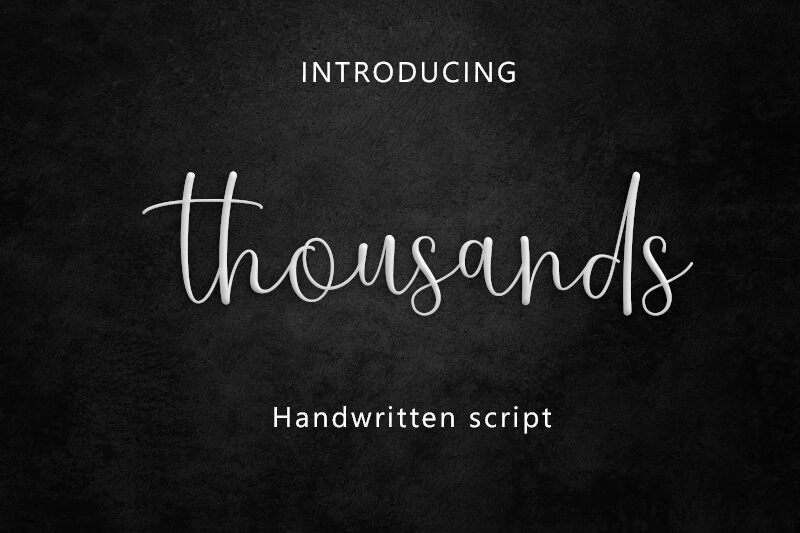
Thousands
Thousands font, designed by Amarlettering - Takiy, captures the essence of handwritten elegance with a playful twist. Its fluid, sweeping lines and dynamic curves evoke a sense of warmth and personality, making it perfect for conveying emotion. The design features striking contrasts between light and bold strokes, creating visual interest that draws the eye.
Ideal for personal projects, wedding invitations, and branding that seeks an approachable yet stylish identity, Thousands brings a fresh charm to any design context. Its expressive nature harmonizes beautifully with both contemporary and traditional applications, ensuring your message stands out with flair. Embrace the unique character of Thousands to add a touch of sophistication infused with creativity to your next project.